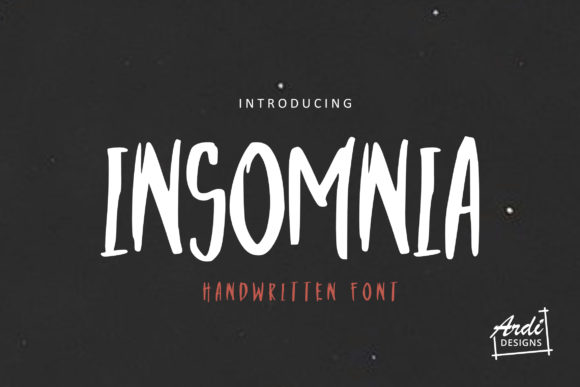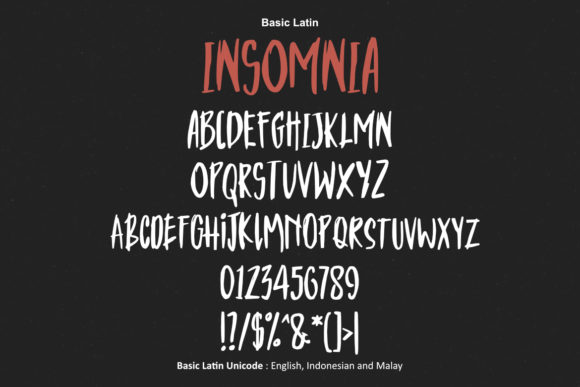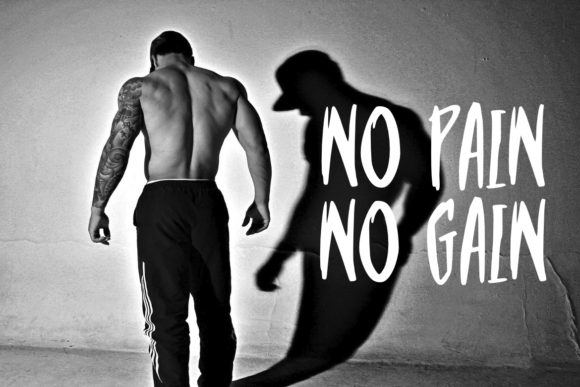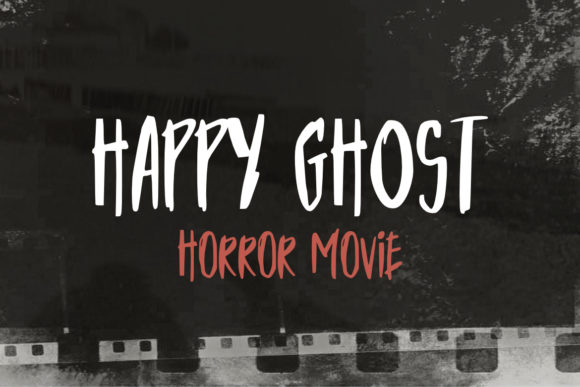
Insomnia: A Modern Handwritten Font for Creative Projects
Insomnia is a distinctive handwritten font that combines a cool aesthetic with a contemporary feel. This versatile typeface is perfect for various creative applications, from enhancing your Instagram posts to adding a personal touch to DIY projects. With its unique characteristics, Insomnia can transform any creative idea into a true piece of art.
Key Features of Insomnia Font
- Unique Handwritten Style: Insomnia’s handcrafted appearance adds authenticity to your designs, making them stand out in a digital world.
- Modern Aesthetic: The font’s contemporary look makes it suitable for trendy projects and current design trends.
- Versatile Usage: Ideal for social media, branding, personal crafts, and a wide range of creative endeavors.
- Legibility: Despite its artistic nature, Insomnia maintains excellent readability across various sizes and applications.
Perfect for Instagram and DIY Projects
In today’s visually-driven social media landscape, having a unique font can make all the difference. Insomnia is particularly well-suited for Instagram, where eye-catching visuals are crucial. Use it to create stunning quotes, captions, or even as part of your Instagram Stories to engage your audience effectively. For DIY enthusiasts, Insomnia offers endless possibilities. Whether you’re creating personalized gifts, designing wedding invitations, or crafting home decor items, this font adds a special flair that elevates your projects from ordinary to extraordinary. If you’re looking for complementary fonts, you might also consider Thinks Opentype Font or KayKhosrow Font for additional creative options.
Transform Your Creative Ideas
With Insomnia, you can turn any creative concept into a true work of art. The font’s unique characteristics help bring your vision to life, adding a personal and artistic touch to your projects. Its flowing lines and subtle imperfections create a sense of authenticity that resonates with viewers.
Versatility in Design
Insomnia’s versatility extends beyond social media and DIY projects. It’s an excellent choice for:
- Branding materials
- Packaging design
- Book covers
- Greeting cards
- Logos and wordmarks
- Website headers
Making an Impact
In a world where digital fonts are ubiquitous, Insomnia offers a refreshing change. Its handwritten style brings a human touch to digital designs, creating a connection with the audience. This emotional resonance can be particularly effective in branding and marketing materials. By incorporating Insomnia into your designs, you’ll create visually appealing and memorable content that captures attention and expresses your creativity. Whether you’re a professional designer or a DIY enthusiast, Insomnia provides the tools to make your projects truly unique and impactful. For those looking to expand their font collection, Winter Color Font could be another interesting option to explore alongside Insomnia.